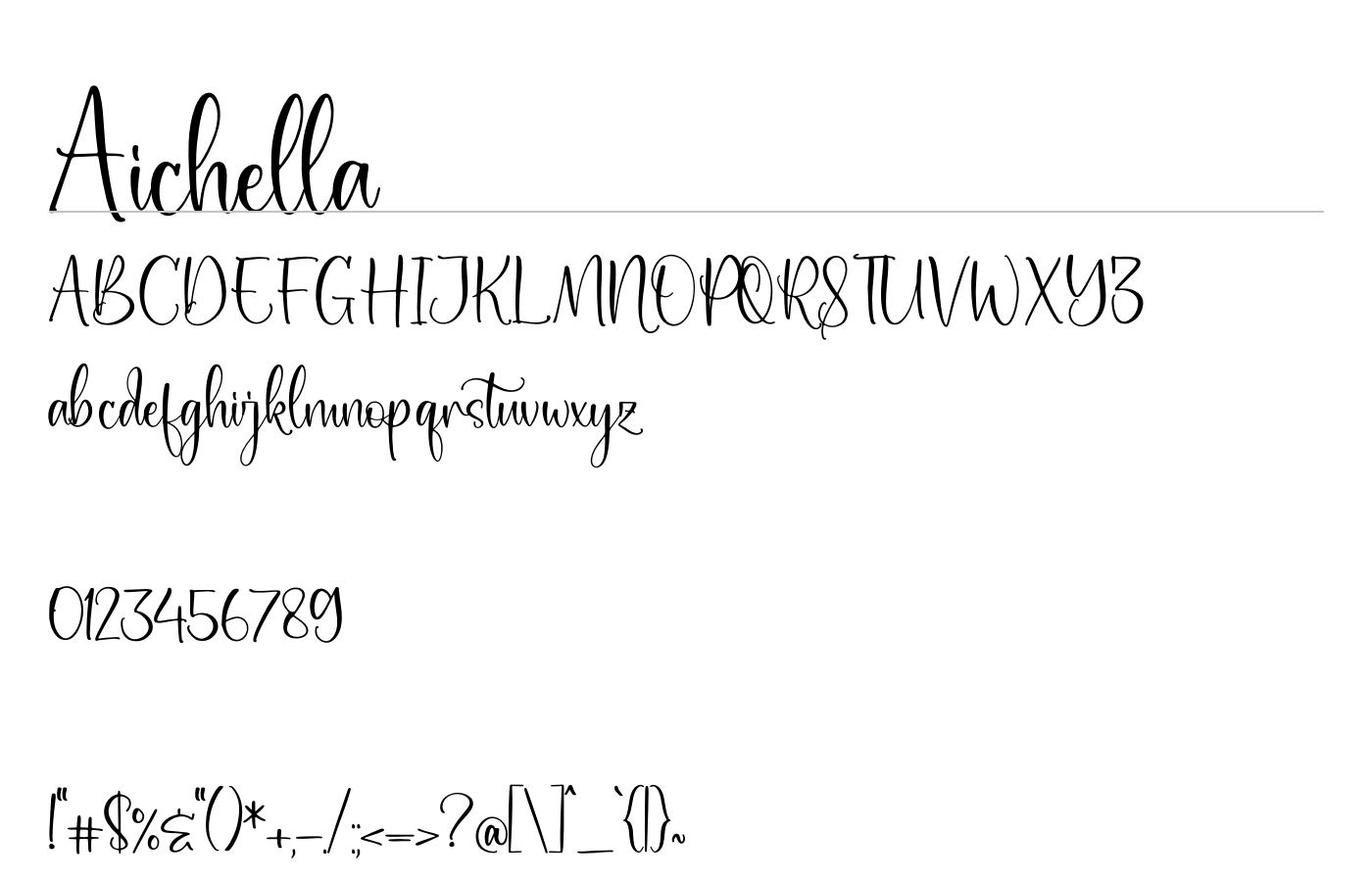
Aichella is a delicate and elegant script font featuring tall, slender letterforms with playful, flowing curves that give it a whimsical yet refined personality. Its light weight and airy spacing make it perfect for stylish branding, invitations, and feminine design projects where a touch of sophistication and charm is desired. This font works beautifully for headlines and decorative text that require a graceful, hand-lettered feel.
Aichella Font
About Aichella Font
| Font family | Aichella Font |
| Designer | Nanang Jamaludin |